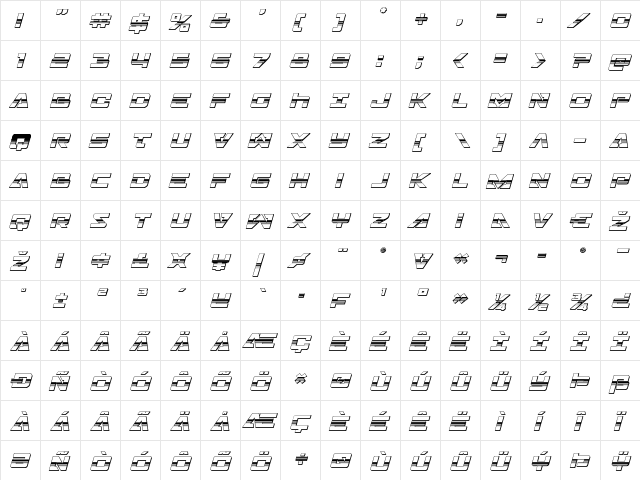
Trans-America Platinum Italic Italic
Design Context for Trans-America Platinum Italic Typeface
Trans-America Platinum Italic is a composed and adaptable typeface that performs quietly and consistently across a wide range of design contexts. The slanted form adds forward momentum and visual energy.
Pro Tip: Use Trans-America Platinum Italic for emphasis, pull quotes, and subheadings where its slanted energy can add rhythm to the layout.